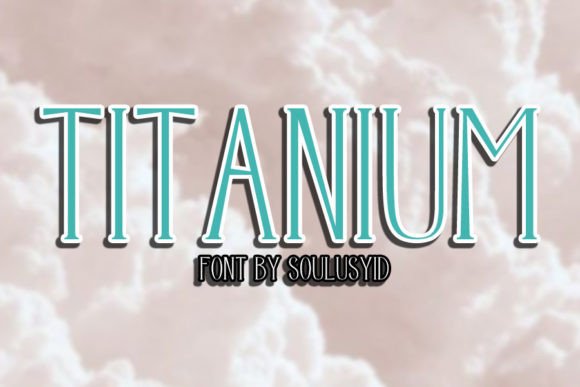
**Introducing Titanium Font: The Striking Choice for Bold and Modern Designs**
Are you ready to inject a dose of modernity and power into your designs? Titanium Font, a captivating serif creation by the talented SoulusYid, is here to turn heads and leave a lasting impression.
Titanium's sharp, geometric lines and precision-cut edges exude a confidence and boldness that will elevate your branding to new heights. Whether you're crafting logos, designing captivating posters, or creating eye-catching social media graphics, Titanium will amplify your message with its undeniable presence.
But beyond its striking visual appeal, Titanium is a font of remarkable versatility. Its carefully crafted curves and angles lend an air of sophistication to any project, while its adaptability ensures seamless integration into a wide range of design styles. From sleek and contemporary to playful and imaginative, Titanium has the power to transform your creative visions into captivating realities.
So why settle for ordinary fonts when you can unleash the extraordinary with Titanium? Let its bold strokes and sharp edges become the cornerstone of your design endeavors, capturing attention and sparking conversations. Titanium is not just a font; it's a statement of style and a passport to design excellence.
* **Unwavering Boldness:** Command attention with Titanium's striking lines and sharp edges.
* **Modern Elegance:** Infuse your designs with a touch of sophistication and contemporary flair.
* **Remarkable Versatility:** Seamlessly integrate Titanium into a myriad of design styles, from sleek to whimsical.
* **Effortless Legibility:** Experience effortless readability across all sizes, ensuring your message is crystal clear.